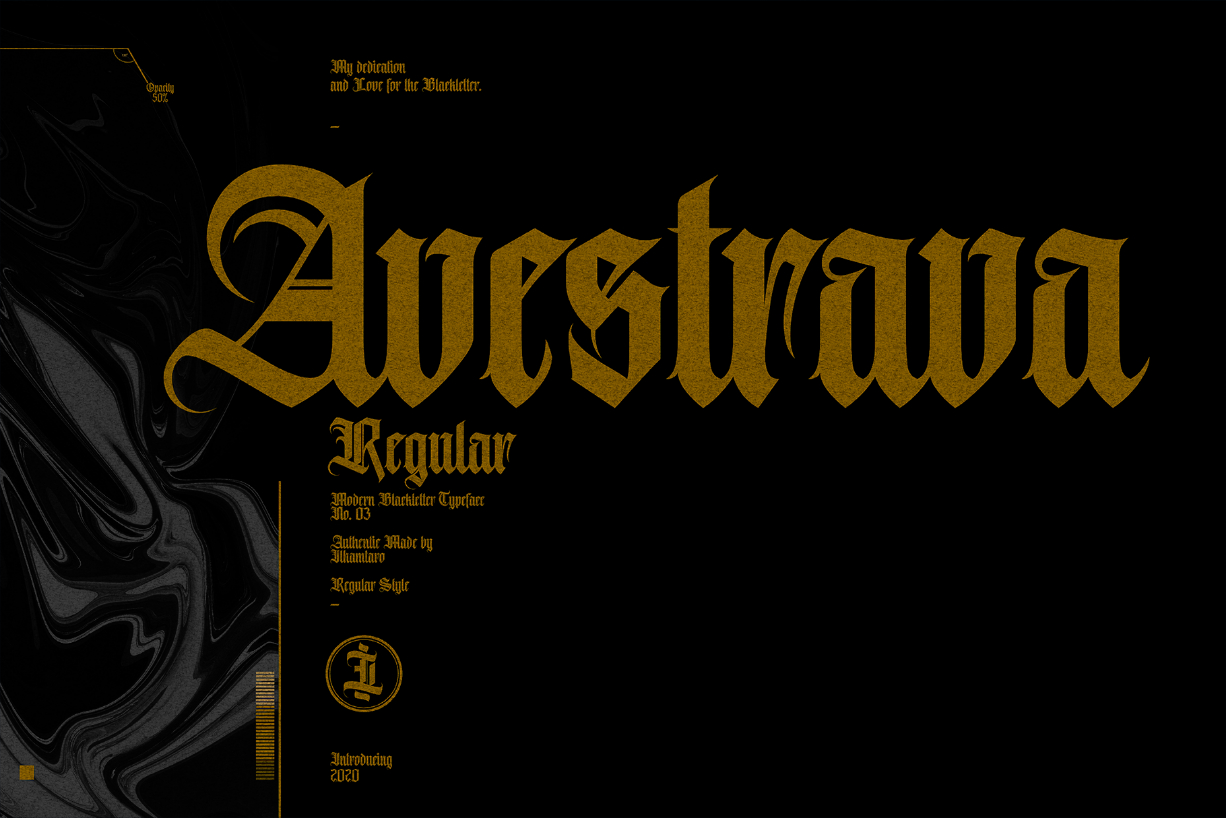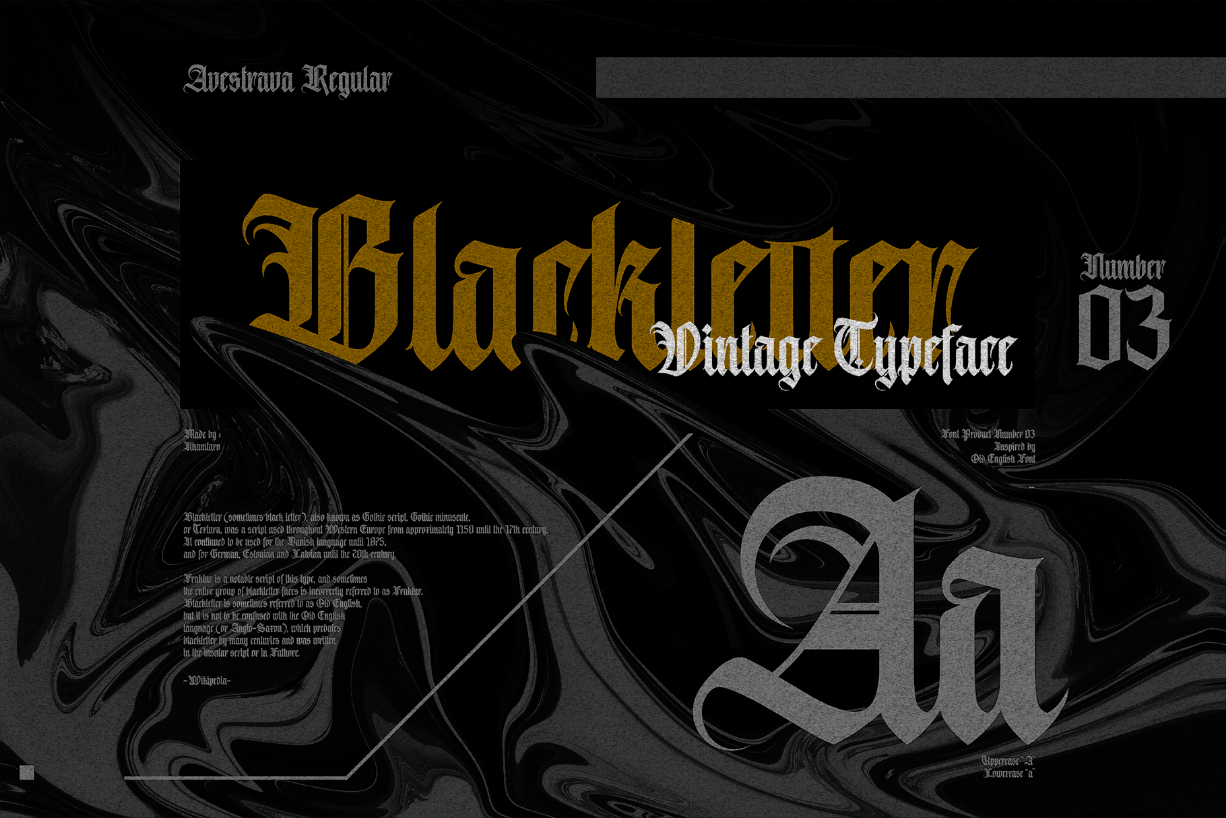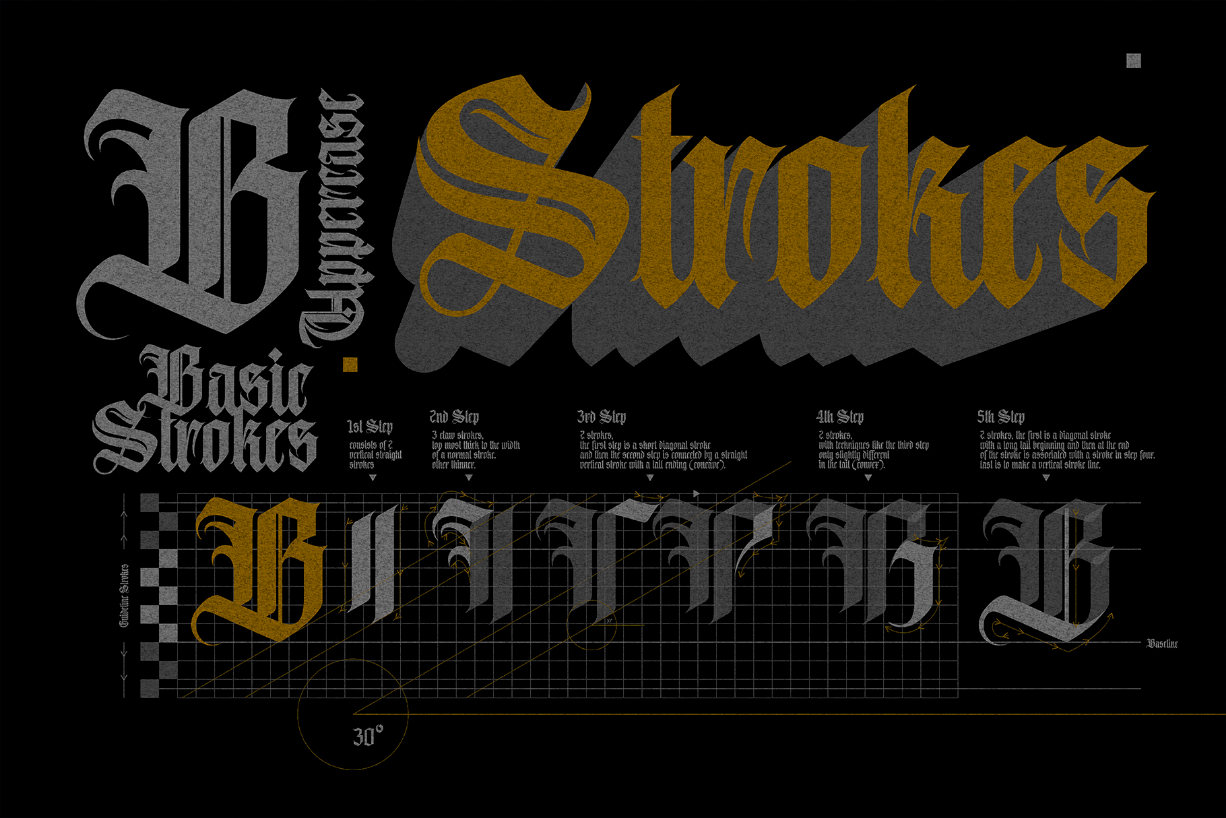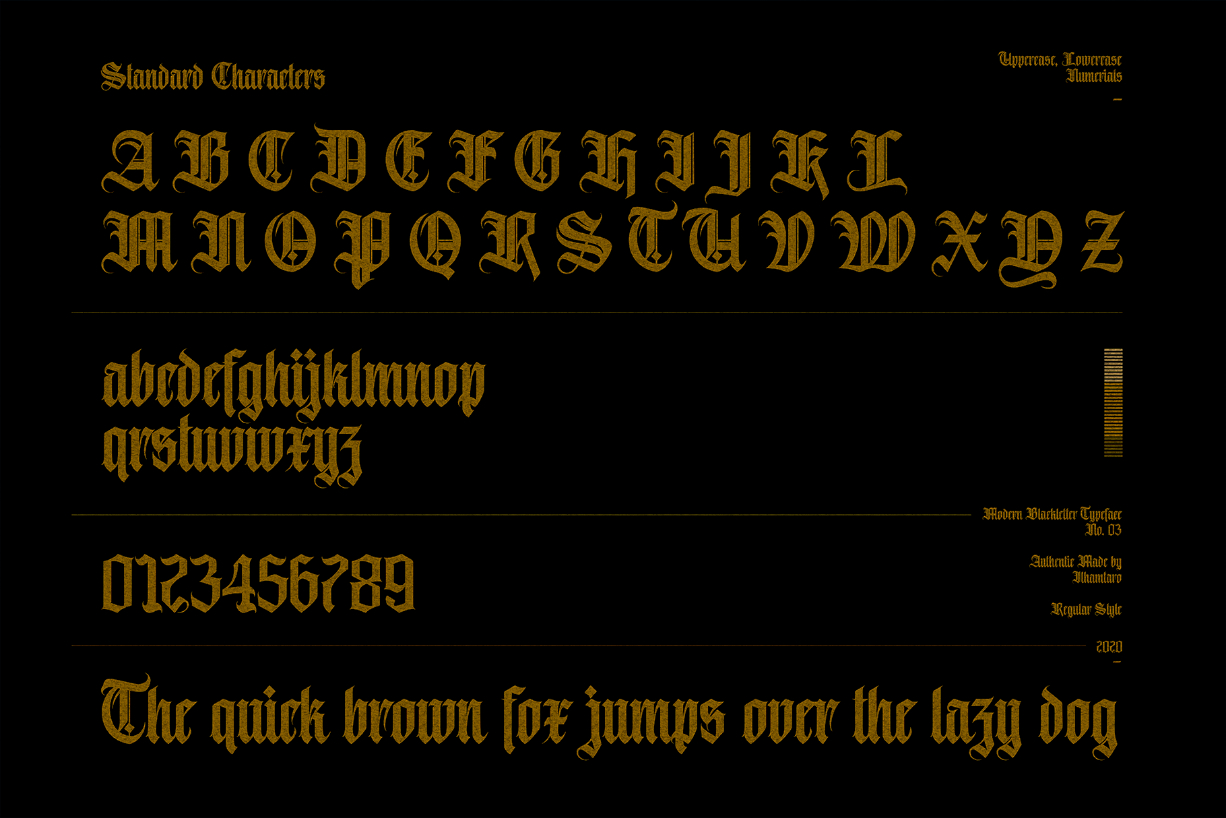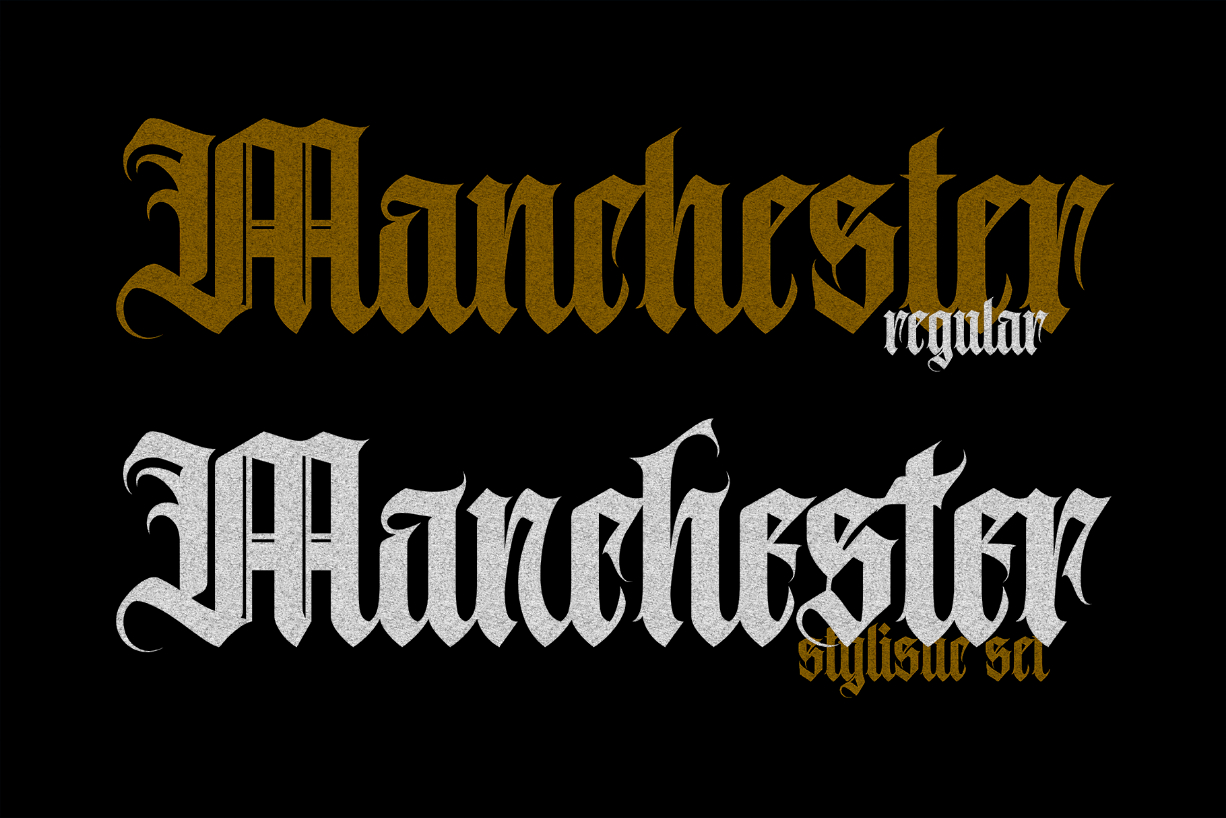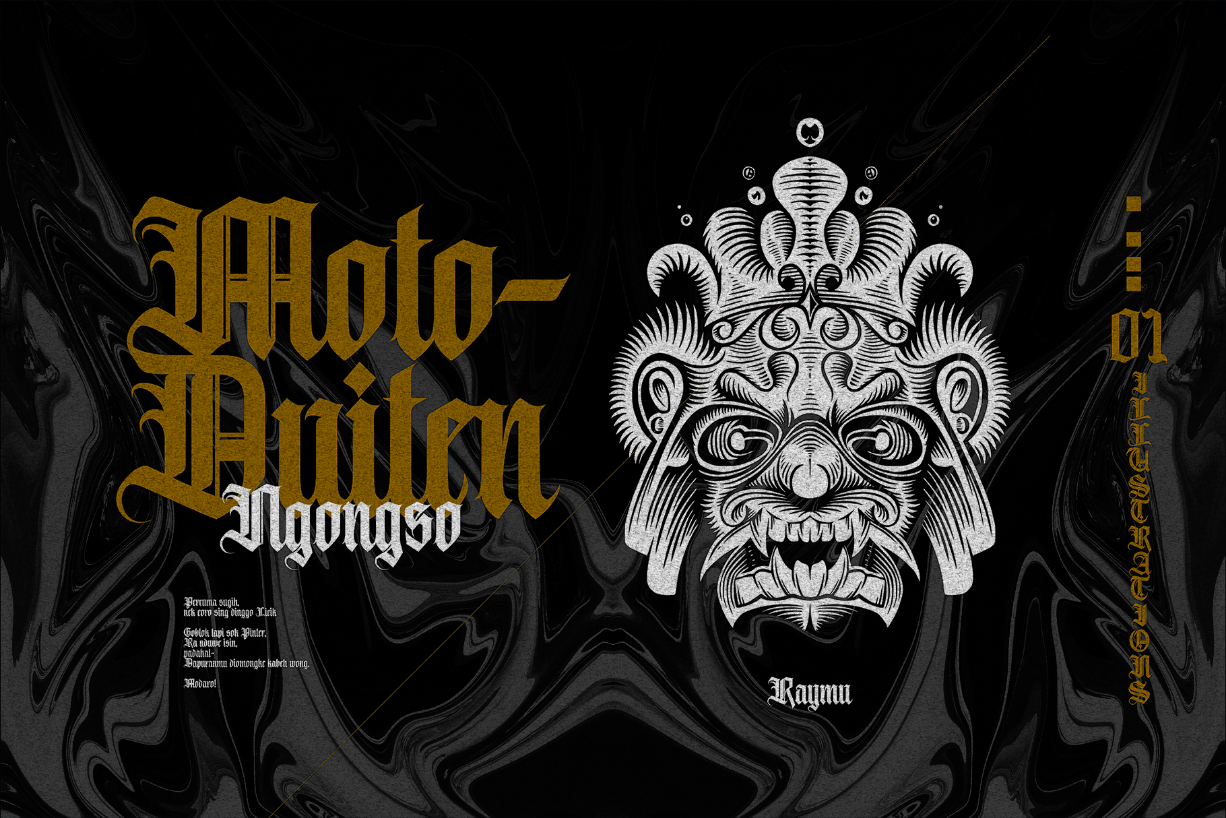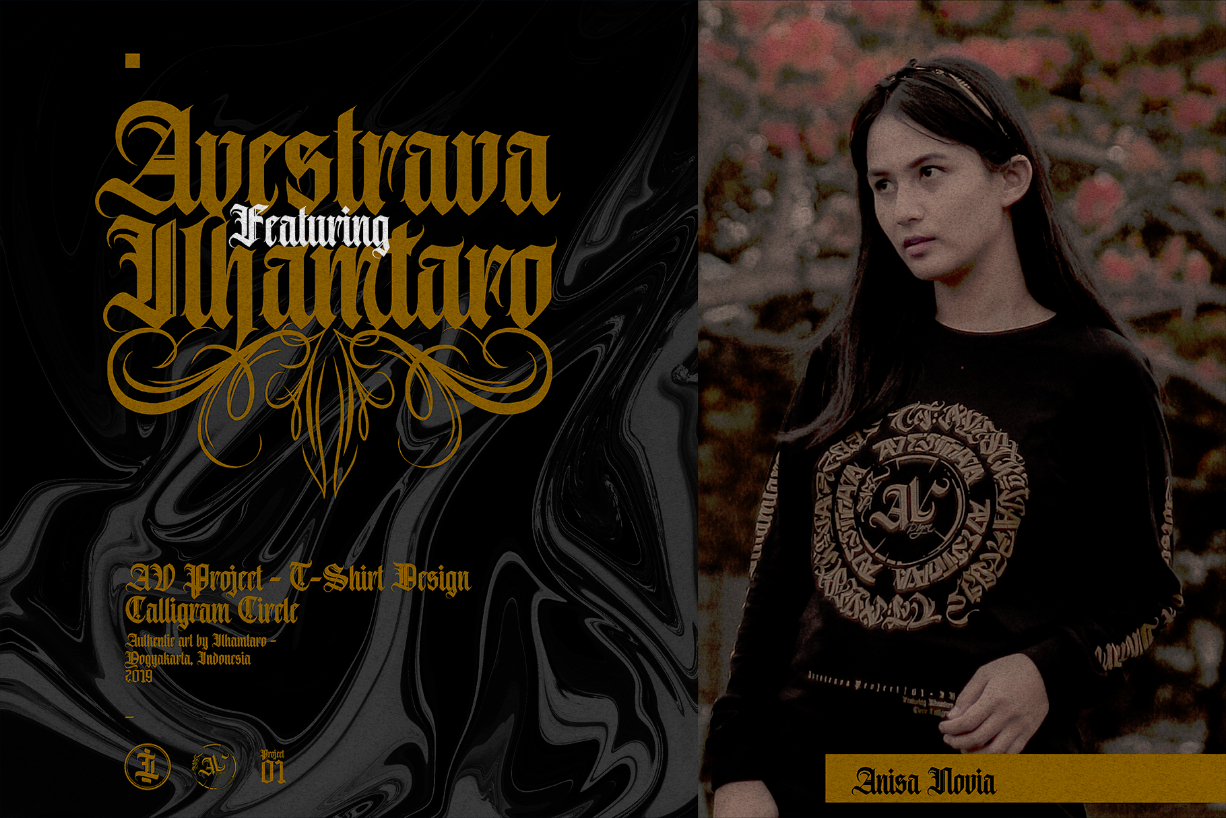
Avestrava Font
About Avestrava Font
Avestrava is a gorgeous blackletter font with a bold feel. Use it to add a stunning twist to any design project in an instant!